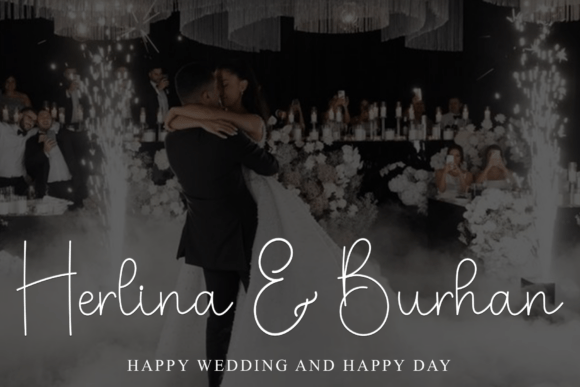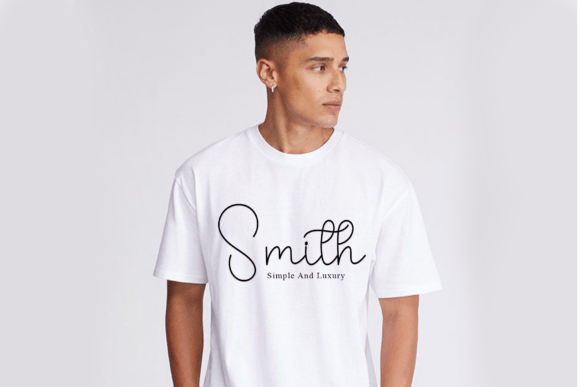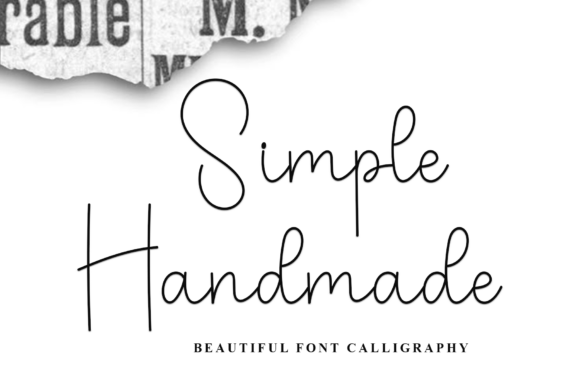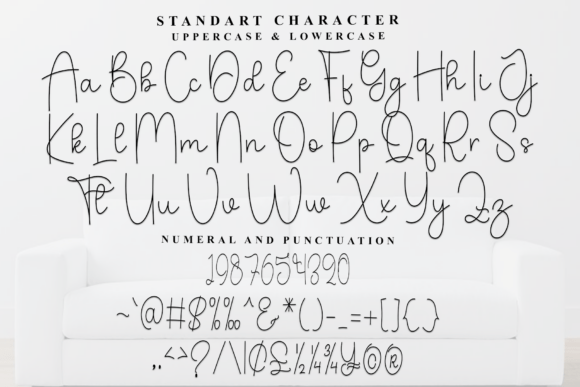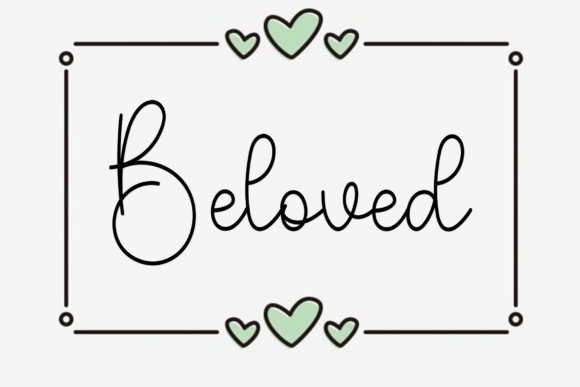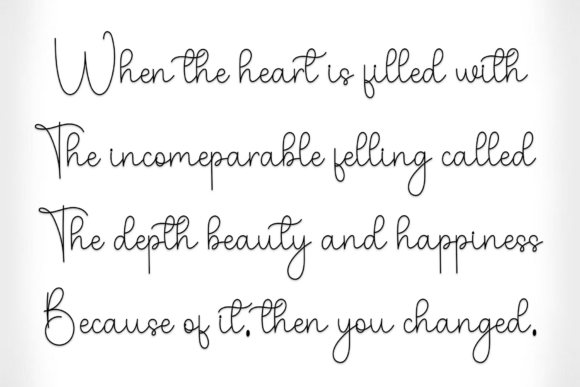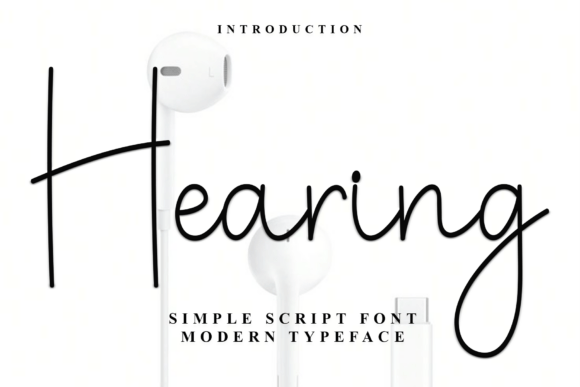
Hearing Font: Elevate Your Designs with Elegance and Sophistication
In the world of typography, fonts play a crucial role in conveying the tone and personality of a design. For designers and crafters seeking to add a touch of elegance and sophistication to their projects, the Hearing Font is an excellent choice. This stylish and incredibly elegant script font is perfect for a variety of applications, from wedding invitations and thank you cards to quotes, greeting cards, logos, and business cards.
The Characteristics of Hearing Font
Hearing Font is a script font that boasts a unique and beautiful handwritten style. Its elegant and refined appearance makes it an ideal choice for designs that require a touch of sophistication. The font features:
- Beautifully crafted letters: Each letter in the Hearing Font is carefully designed to exude elegance and refinement.
- Flowing script style: The font’s script style is smooth and flowing, creating a beautiful visual effect.
- Highly legible: Despite its elegant appearance, the Hearing Font is highly legible, making it perfect for use in a variety of applications.
Uses of Hearing Font
The versatility of Hearing Font makes it suitable for a wide range of design projects. Some of the most popular uses of this font include:
- Wedding Invitations: Add a touch of elegance and sophistication to your wedding invitations with Hearing Font.
- Thank You Cards: Express your gratitude in style with beautifully designed thank you cards featuring Hearing Font.
- Quotes: Use Hearing Font to add a touch of elegance to your quotes and make them stand out.
- Greeting Cards: Create beautiful greeting cards for special occasions such as birthdays, anniversaries, and holidays.
- Logos: Use Hearing Font to create elegant and sophisticated logos for your business or brand.
- Business Cards: Add a touch of professionalism to your business cards with Hearing Font.
Benefits of Using Hearing Font
Using Hearing Font in your designs offers several benefits, including:
- Unique and elegant appearance: Hearing Font adds a touch of elegance and sophistication to your designs.
- Highly versatile: The font is suitable for a wide range of design projects, from wedding invitations to logos.
- Easy to read: Despite its elegant appearance, Hearing Font is highly legible, making it perfect for use in a variety of applications.
- Time-saving: With Hearing Font, you can create beautiful designs quickly and easily, saving you time and effort.
Tips for Using Hearing Font
To get the most out of Hearing Font, follow these tips:
- Use it sparingly: Hearing Font is a elegant and sophisticated font, so use it sparingly to avoid overwhelming your design.
- Pair it with other fonts: Combine Hearing Font with other fonts to create a unique and visually appealing design.
- Experiment with colors: Try out different colors to find the perfect match for your design.
- Pay attention to spacing: Make sure to adjust the spacing between letters and words to create a beautiful and balanced design.
In conclusion, Hearing Font is a beautiful and elegant script font that is perfect for designers and crafters seeking to add a touch of sophistication to their projects. Its unique and refined appearance makes it suitable for a wide range of design applications, from wedding invitations to logos. With its high legibility and versatility, Hearing Font is an excellent choice for anyone looking to elevate their designs.